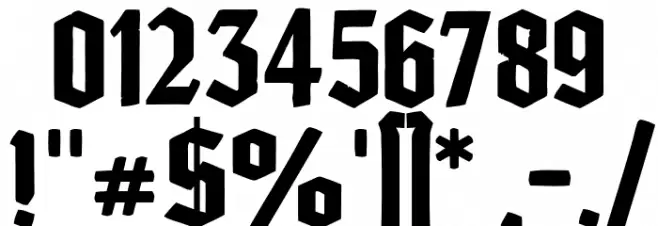
GrobeDeutschmeister Font
GrobeDeutschmeister Description
This font exhibits a bold and striking blackletter style, characterized by its sharp, angular lines and intricate detailing. The uppercase and lowercase letters maintain a consistent Gothic aesthetic, with elaborate serifs and a medieval flair. The numerals and special characters are designed to match the ornate style, making them stand out with their unique and decorative appearance. This font is reminiscent of traditional German script, often used in historical and cultural contexts. Its boldness and intricate design make it suitable for projects that require a dramatic and impactful visual presence.
A bold, blackletter font with sharp, angular lines and a Gothic aesthetic from Uncategorized fonts.
- Proposed Projects: Ideal for historical documents, cultural event posters, book covers, and branding that requires a traditional or medieval touch.
- Overall Style: Vintage
- Use Case: Headlines, Logos, Decorative purposes